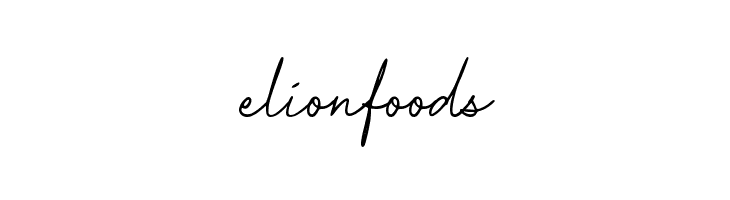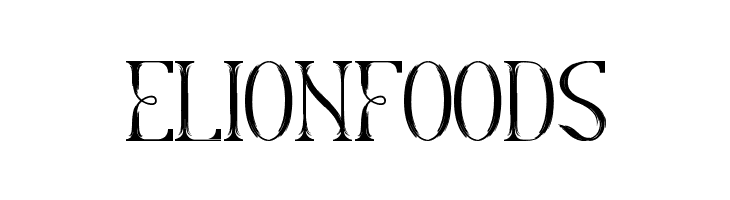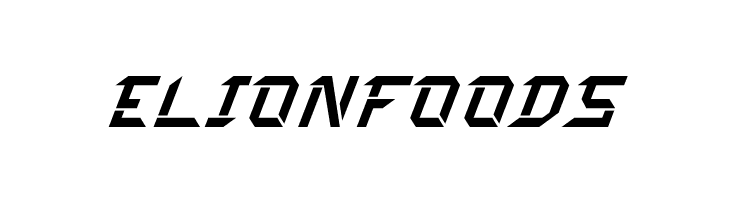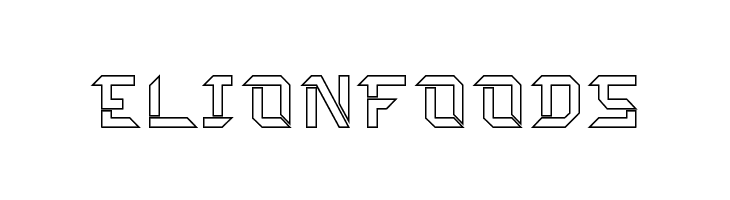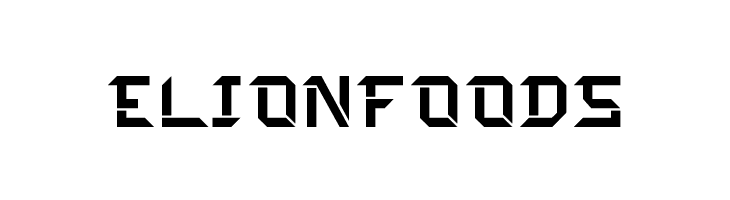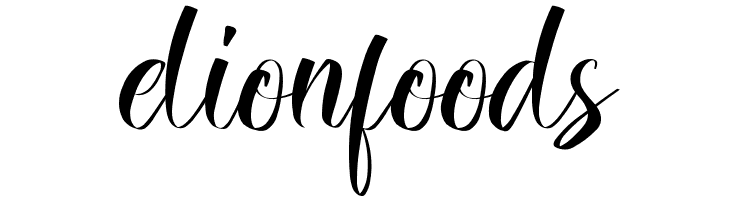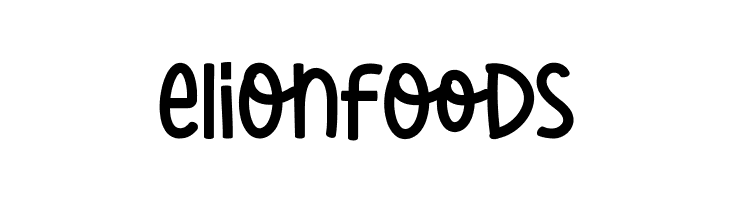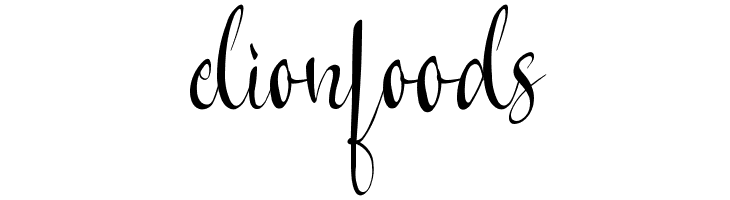
A fluid and elegant handwritten font with smooth, flowing lines.
An elegant, decorative font with calligraphic elements and intricate flourishes.
A futuristic, angular font with a dynamic slant, ideal for tech and modern designs.
A geometric, futuristic outline font with angular lines and sharp edges.
A bold, geometric font with a futuristic and technological aesthetic.
A dynamic and elegant script font with fluid, calligraphic strokes.
A playful, hand-drawn font with rounded, informal letterforms.
An elegant script font with flowing, intricate letterforms and a modern calligraphic style.
A flowing, elegant script font with a modern calligraphic style.
A graceful script font with flowing, cursive strokes and medium contrast.